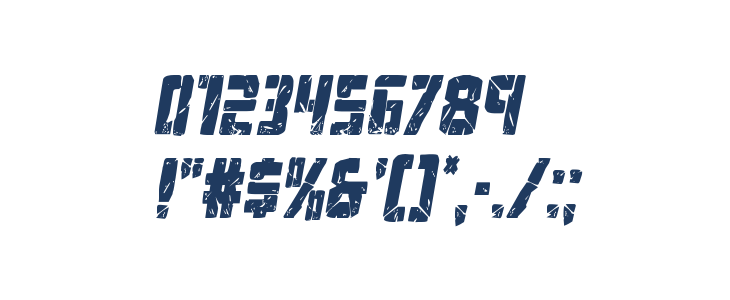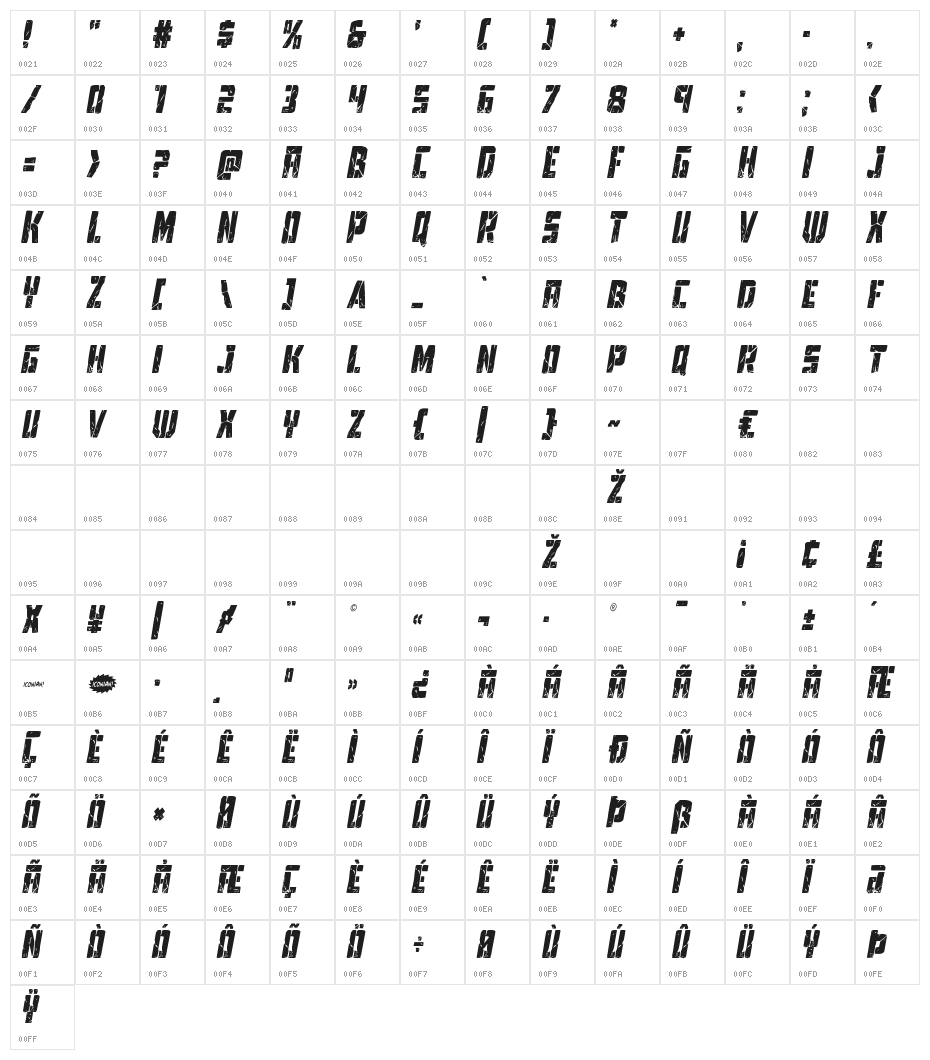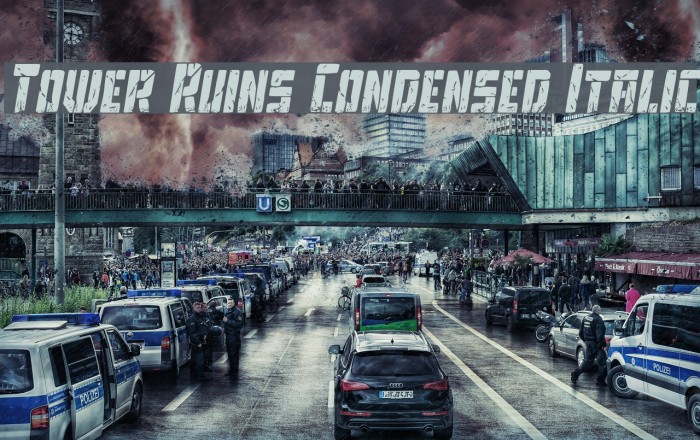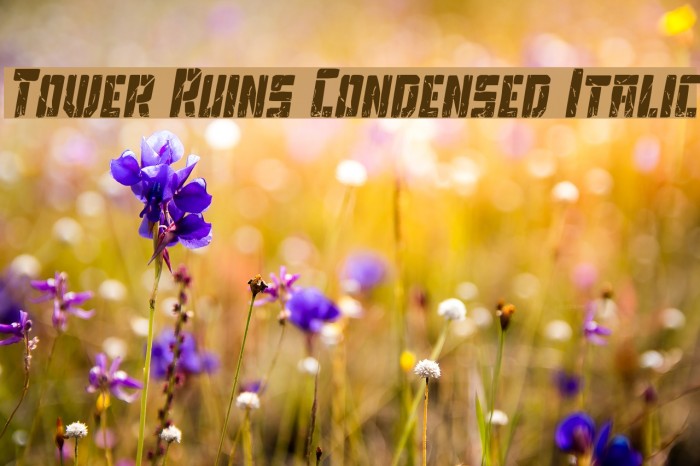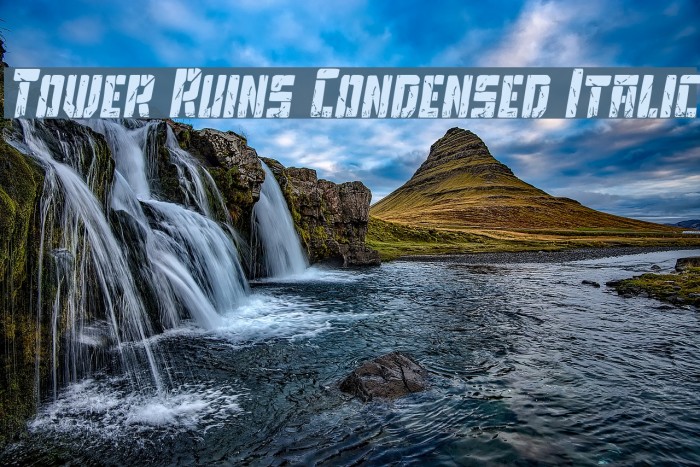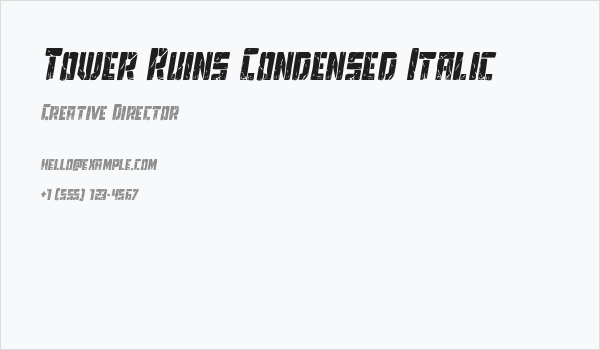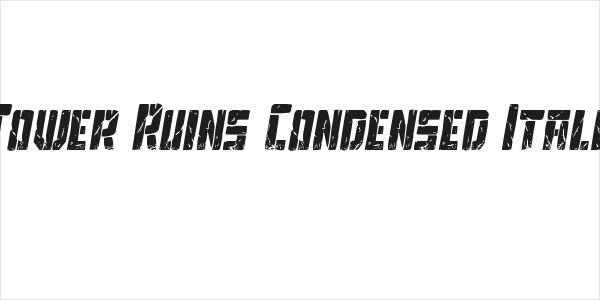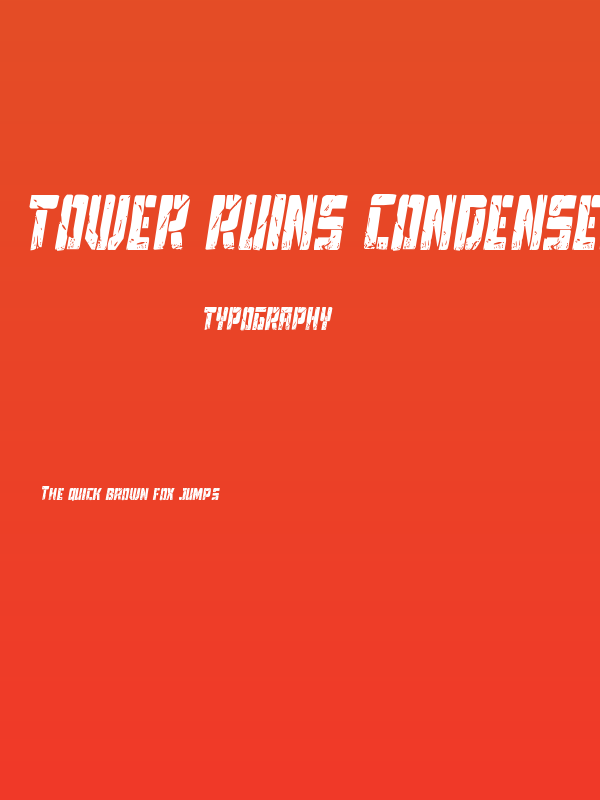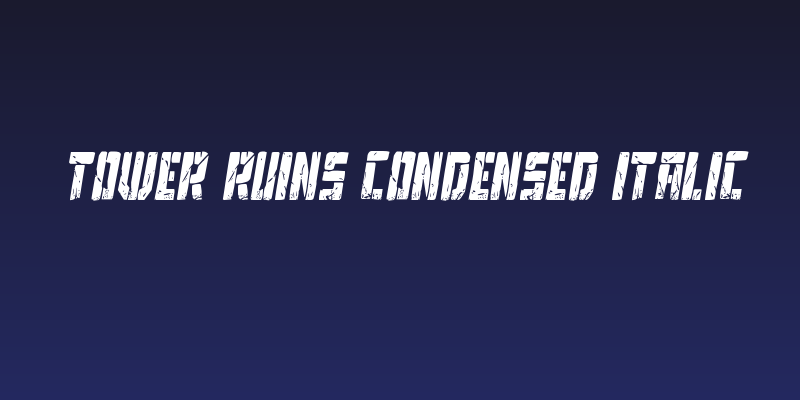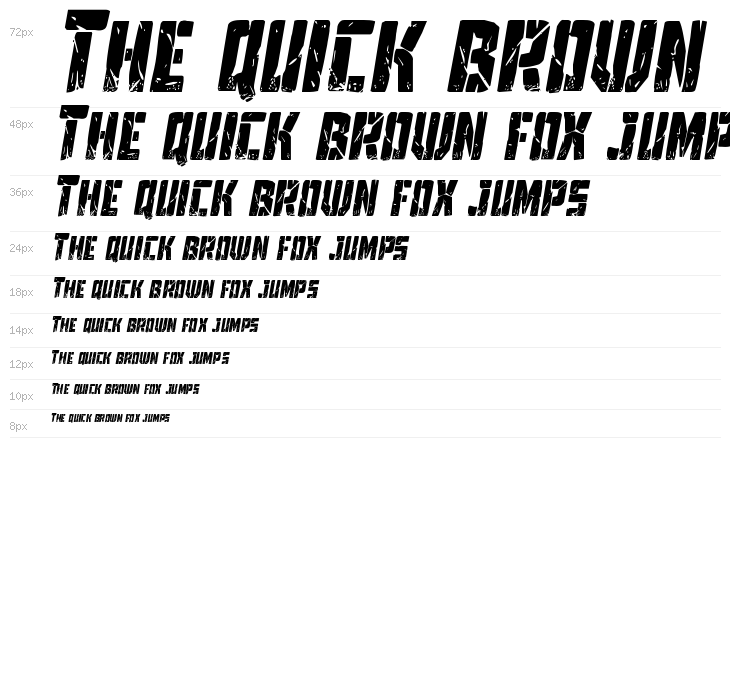
Tower Ruins Condensed Italic Font
Tower Ruins Condensed Italic Description
This font features a bold and condensed style with a distinct italic slant, giving it a dynamic and energetic appearance. The characters are heavily distressed, with a rough, textured look that suggests wear and decay, reminiscent of ruins or ancient structures. The uppercase and lowercase letters maintain a consistent design, with sharp angles and a blocky form that enhances the boldness. Numbers and special characters follow the same stylistic cues, ensuring uniformity across all glyphs. The overall aesthetic is gritty and industrial, making it suitable for projects that require a strong, impactful visual statement.
| Proposed Projects | Ideal for use in posters, album covers, video game graphics, or any project needing a rugged, bold typeface. |